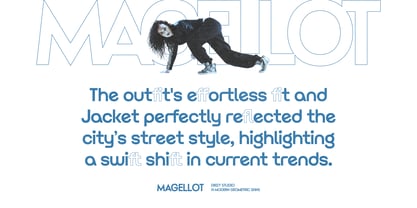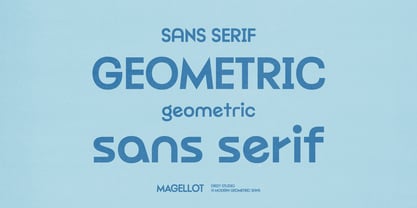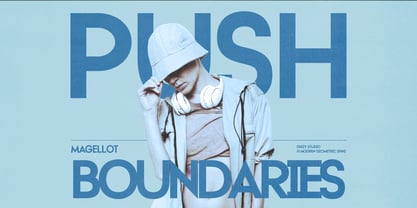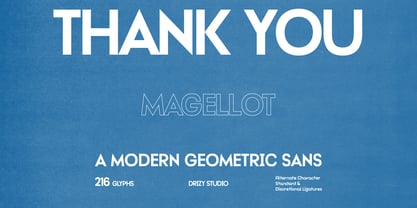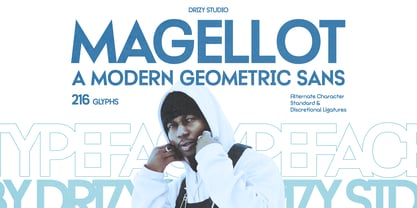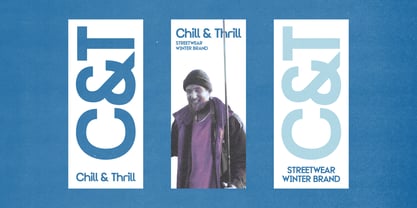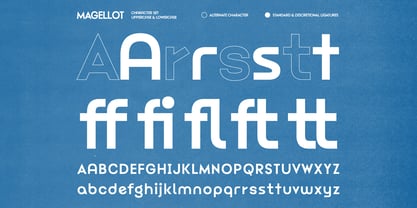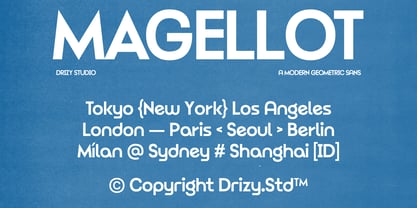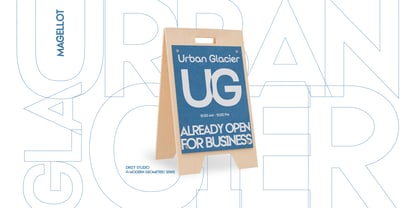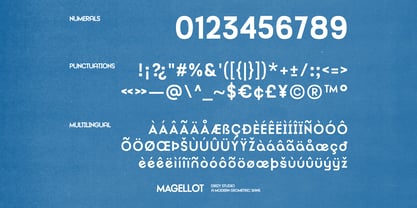
Magellot
by Drizy Font
The Magellot Font Family was designed by Panca Ahmadi Hasan and published by Drizy Font. Magellot contains 1 styles. More about this family
Magellot – Modern Geometric Sans Font
Magellot is a sleek and contemporary font that blends clean lines with bold geometric shapes, perfect for making a statement in Winter Streetwear designs. It’s sharp edges and minimalist aesthetic give it a fresh, modern vibe, ideal for bold branding, apparel, and fashion-forward projects. With it’s versatile design, Magellot fits effortlessly into any trendy winter look, from cozy hoodies to stylish beanies, adding a touch of sophistication and urban flair. Whether used in logos, headlines, or packaging, Magellot stands out with a striking balance of modernity and street-style edge.
Magellot features:
• Character Set (Uppercase & Lowercase)
• Punctuation & Numbers
• Multilingual
• Alternates “r, s, t”
• Standard & Discretional Ligatures
Designers: Panca Ahmadi Hasan
Foundry: Drizy Font